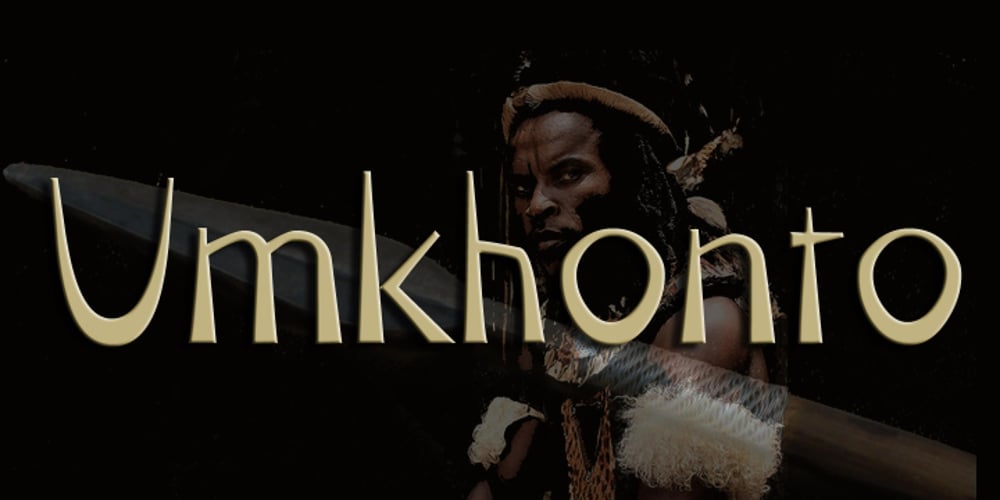
Umkhonto
Umkhonto font
Umkhonto Font Family was designed by Anton Scholtz and published by Scholtz Fonts. Umkhonto contains 4 styles and family package options. Umkhonto is the Zulu word for SPEAR, the traditional weapon of war that the Zulus used. The sharp points of the letters face upwards and represent the sharp points of the dangerous spears. The font includes a full 256 character set: all upper and lower case letters, as well as all numerals and punctuation. It also includes the most commonly used characters used in non-English European languages such as Spanish, French, German and Portuguese. The numerals are mono-spaced so that they will line up correctly in columns of figures. The letters of the alphabet are spaced according to their width and are carefully kerned.